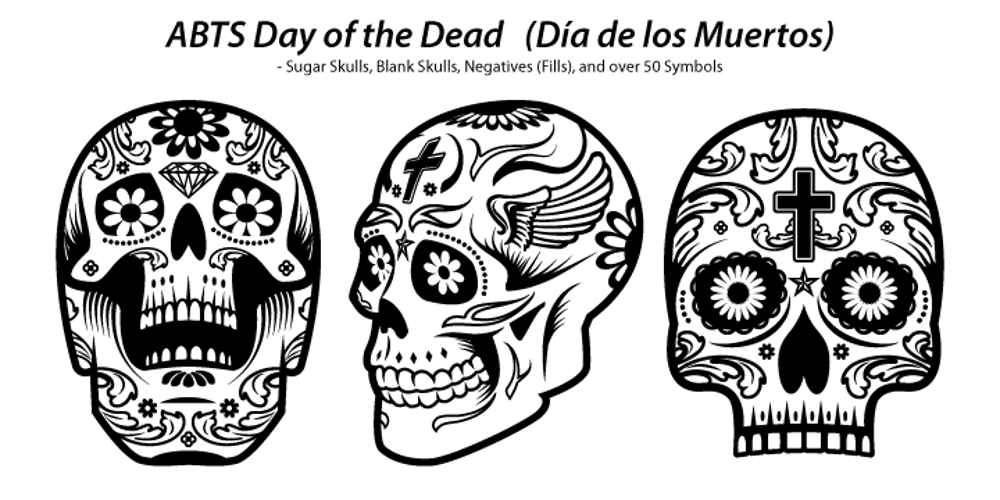
ABTS Day Of The Dead Font Family was designed by Jay Hilgert and published by Albatross. ABTS Day Of The Dead contains 2 styles and family package options. ABTS day of the dead is a highly detailed and meticulously designed symbol font. It’s design is inspired by the Day of the Dead celebration, honoring the deceased. I think The Day of the Dead is one of the greatest reasons anyone should celebrate life, so I decided to make a font honoring that tradition. I’m not even sure If I got all of it right, (traditional symbols and such) but it was a joy to create. There are 2 fonts. The first is the Skulls. This includes uppercase and lowercase A-Z, a-z. There you will find the decorated skulls, blank skulls, and negatives. The second font is the symbols. If you wish to design your own Day of the Dead skull, you should purchase the symbols, as they are designed specifically for adorning the blanks. Purchasing both fonts will give you a discount. Please note, the symbol font will show up in your application of choice as “ABTS Day of the Dead Bold.” This is to avoid software problems with naming the font itself “Symbols.” Skulls are awesome!!!